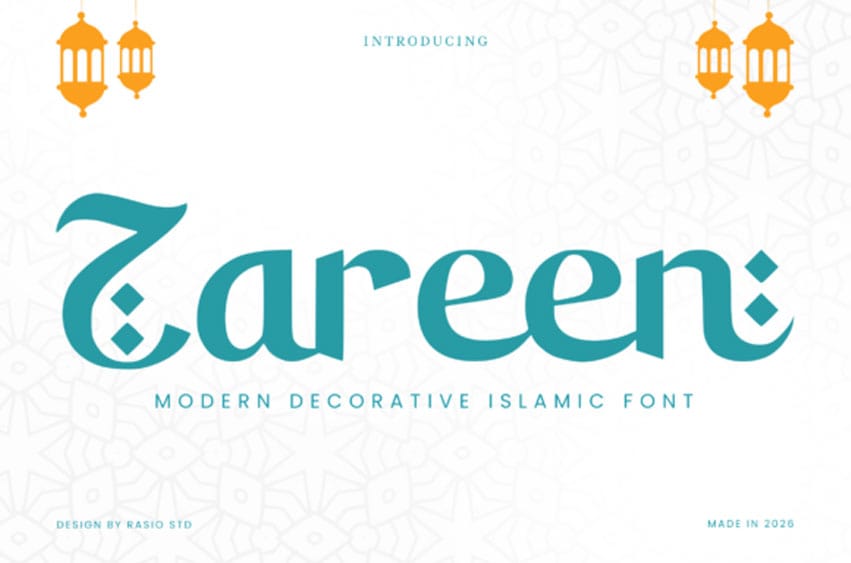
Zareen Font Honor tradition with a contemporary edge using Zarenn, a decorative display typeface that captures a “spiritual-and-stylized” soul. This font features bold, fluid letterforms uniquely characterized by rhythmic, hand-crafted “calligraphic” strokes and diamond-point accents that bridge the gap between classical Arabic script aesthetics and modern Islamic branding.
With its heavy structural weight and respectful personality, Zarenn is the premier choice for independent cultural center identities, boutique Ramadan event promotions, artisanal Halal product packaging, and high-impact “heritage-and-heavenly” social media headers.